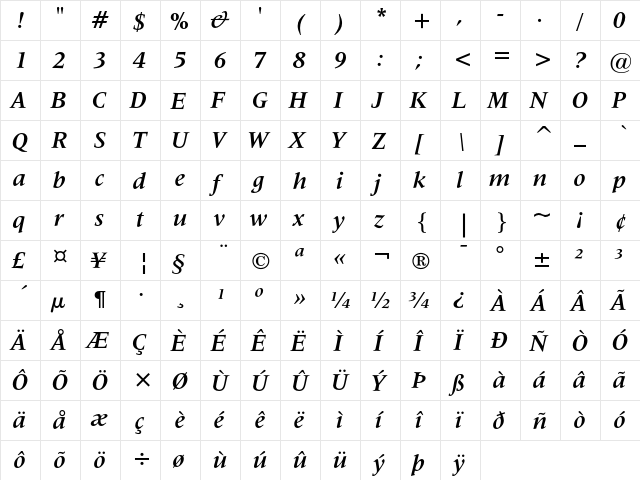
Latin 725 Bold Italic Font Preview
Latin 725 Bold Italic
Design Context for Latin 725 Typeface
Latin 725 is a composed and adaptable typeface that performs quietly and consistently across a wide range of design contexts. The slanted form adds forward momentum and visual energy. The heavy weight commands attention and anchors typographic hierarchies.